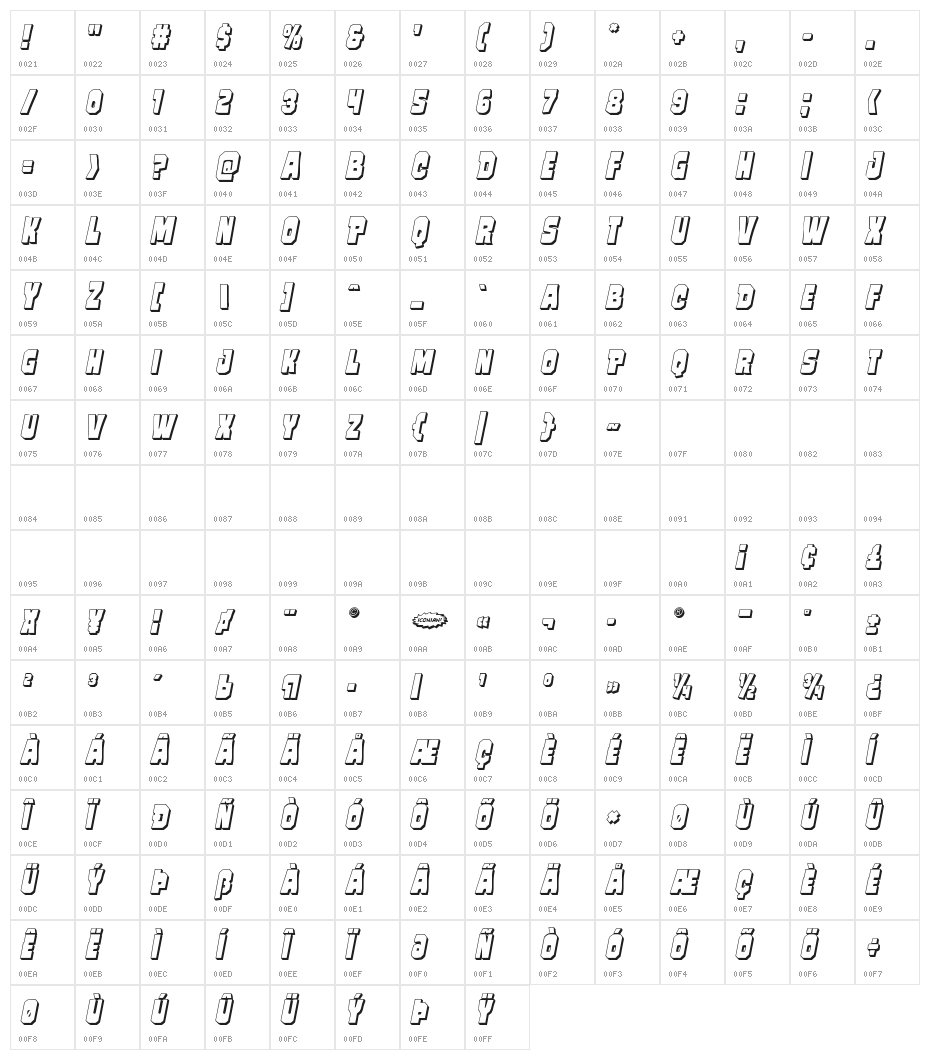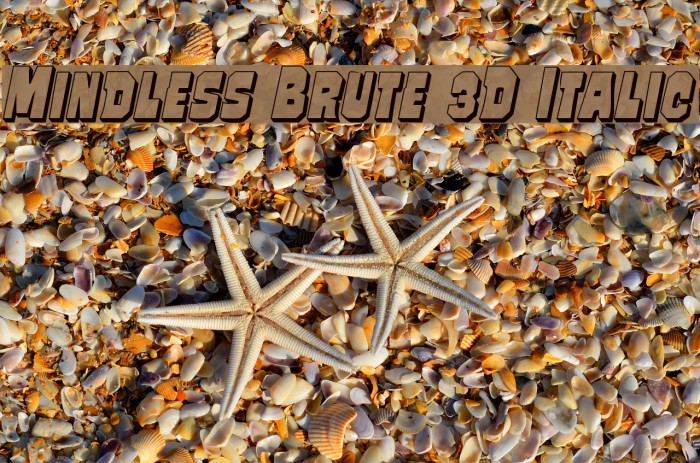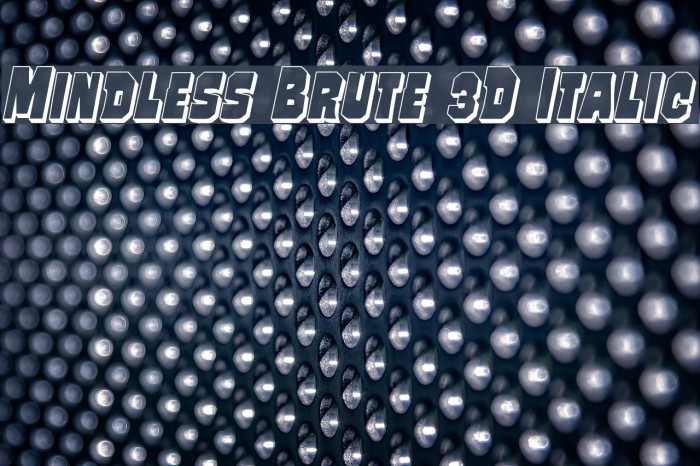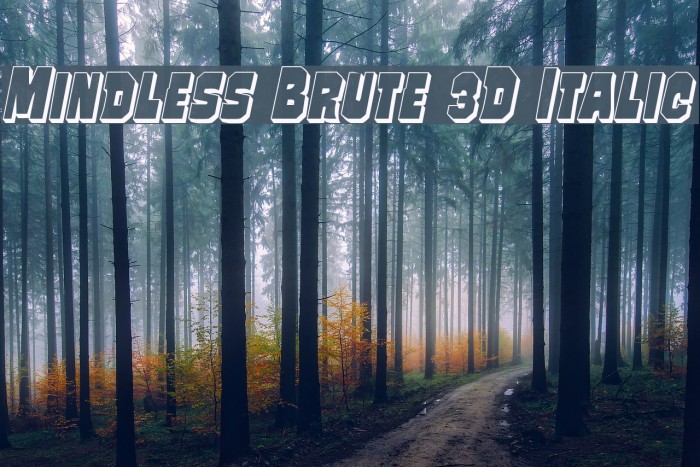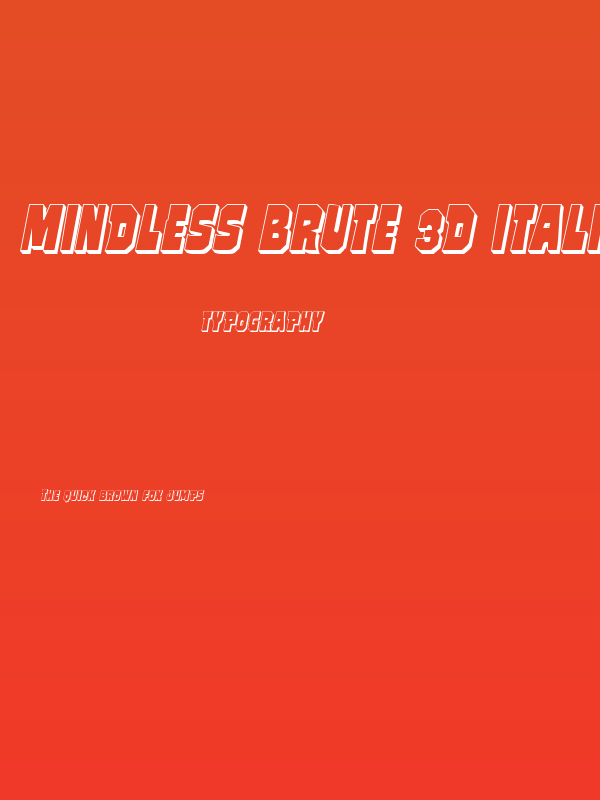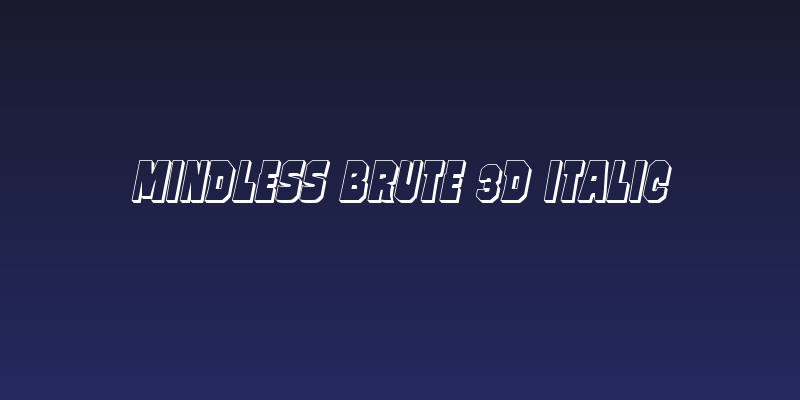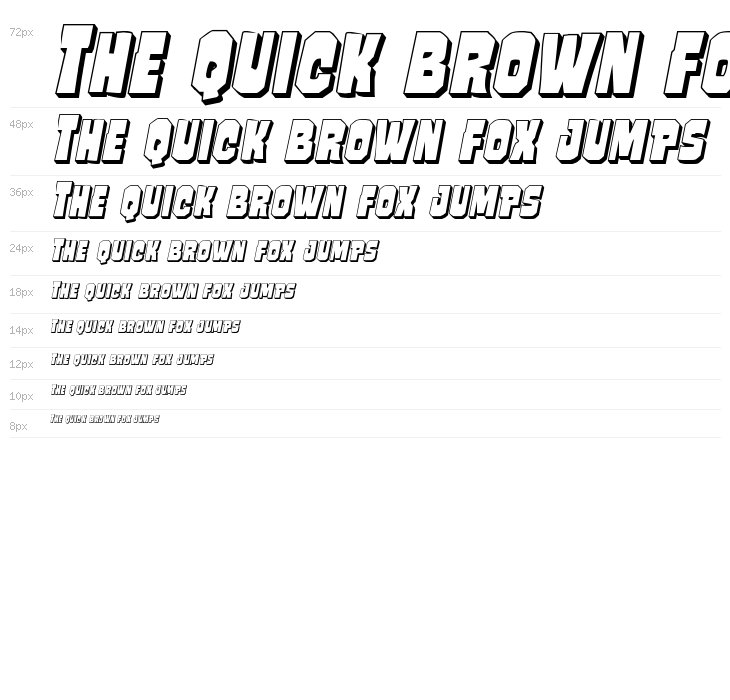
Mindless Brute 3D Italic Font
Mindless Brute 3D Italic Description
This font features a bold, three-dimensional design with a strong italic slant, giving it a dynamic and impactful appearance. The letters are thick and robust, with a shadow effect that enhances the 3D illusion. The uppercase and lowercase characters maintain a consistent style, with sharp angles and clean lines. The numerals and special characters are equally bold, ensuring uniformity across all elements. This font's design is eye-catching and ideal for making a statement, with its bold strokes and italicized form adding a sense of movement and energy.